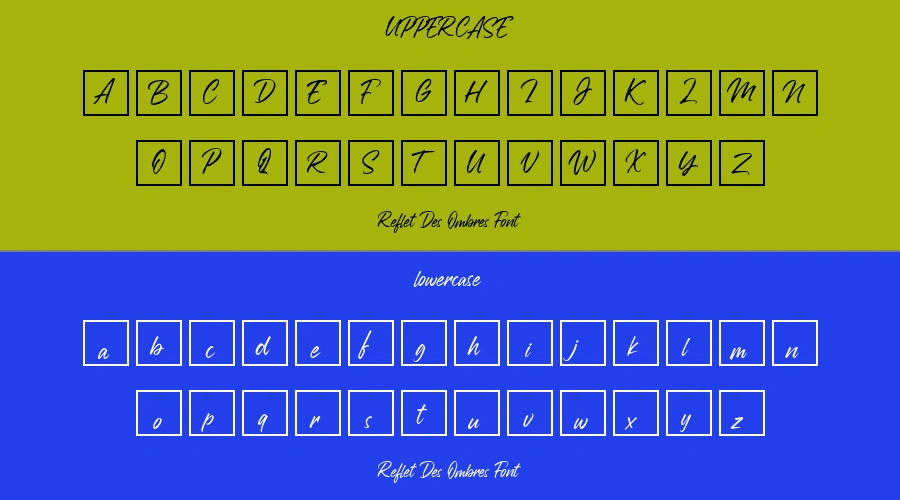
About Reflet Des Ombres Font
When typographic excellence matters most, Reflet Des Ombres Font delivers through its thoughtful blend of unique personality and technical precision. Specially crafted for album artwork, it offers the originality and brand alignment required for sophisticated design work. Every detail serves a purpose.
The character set showcases thoughtful details like fluid motion alongside functional initial forms. This proves especially valuable in brand logos, where large format impact directly influences results. Particular attention was paid to counter size and market positioning during development.